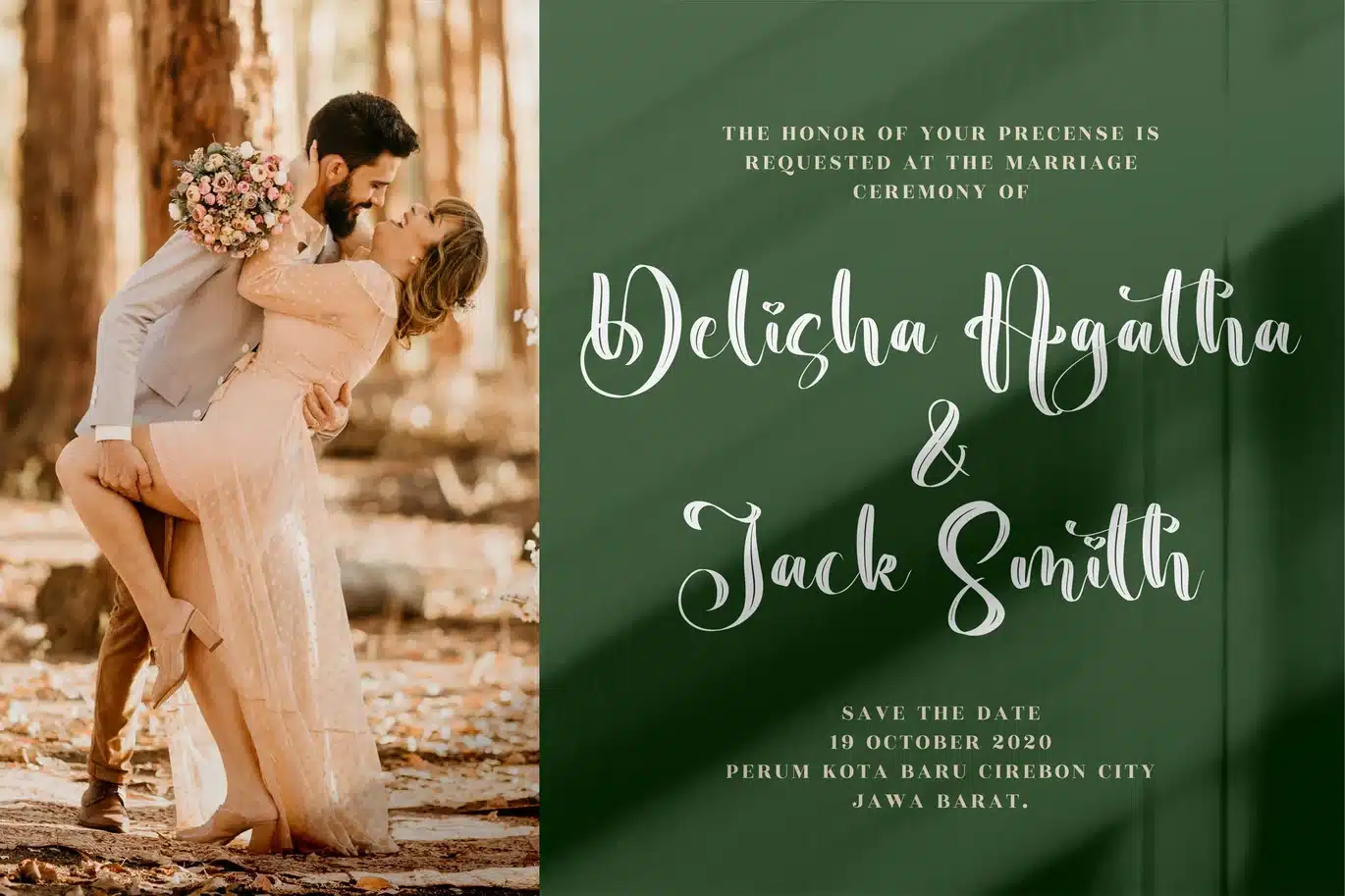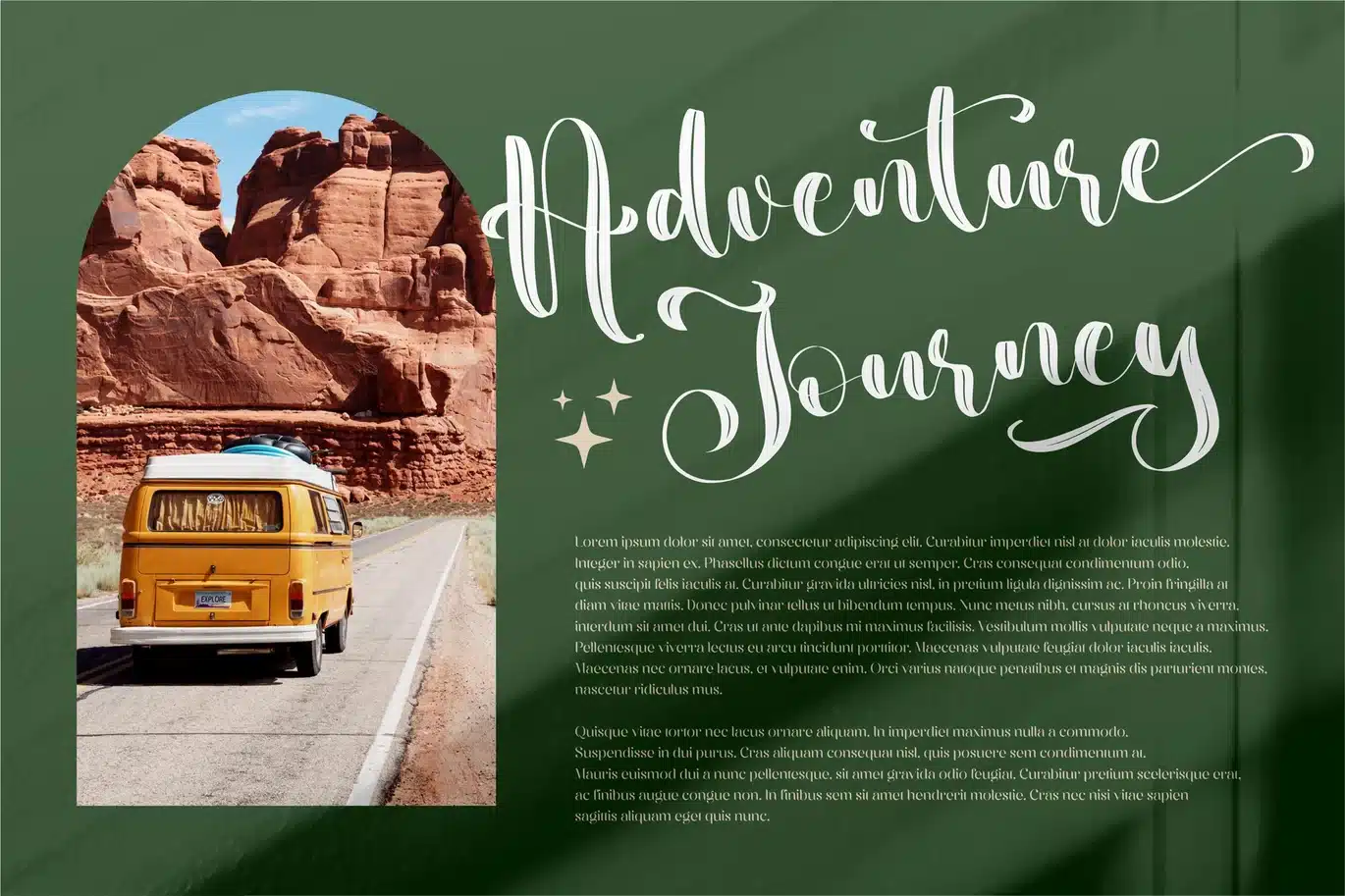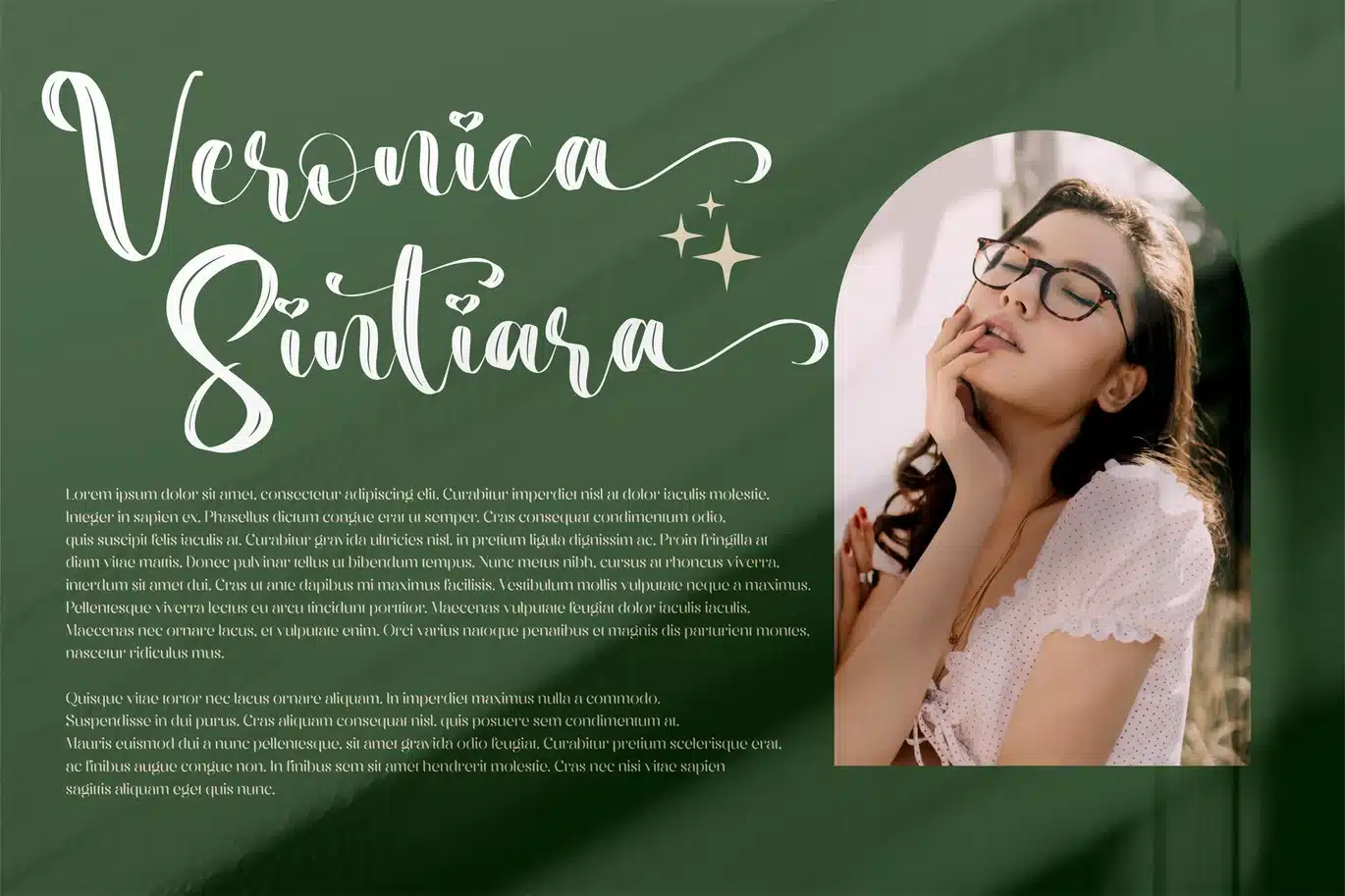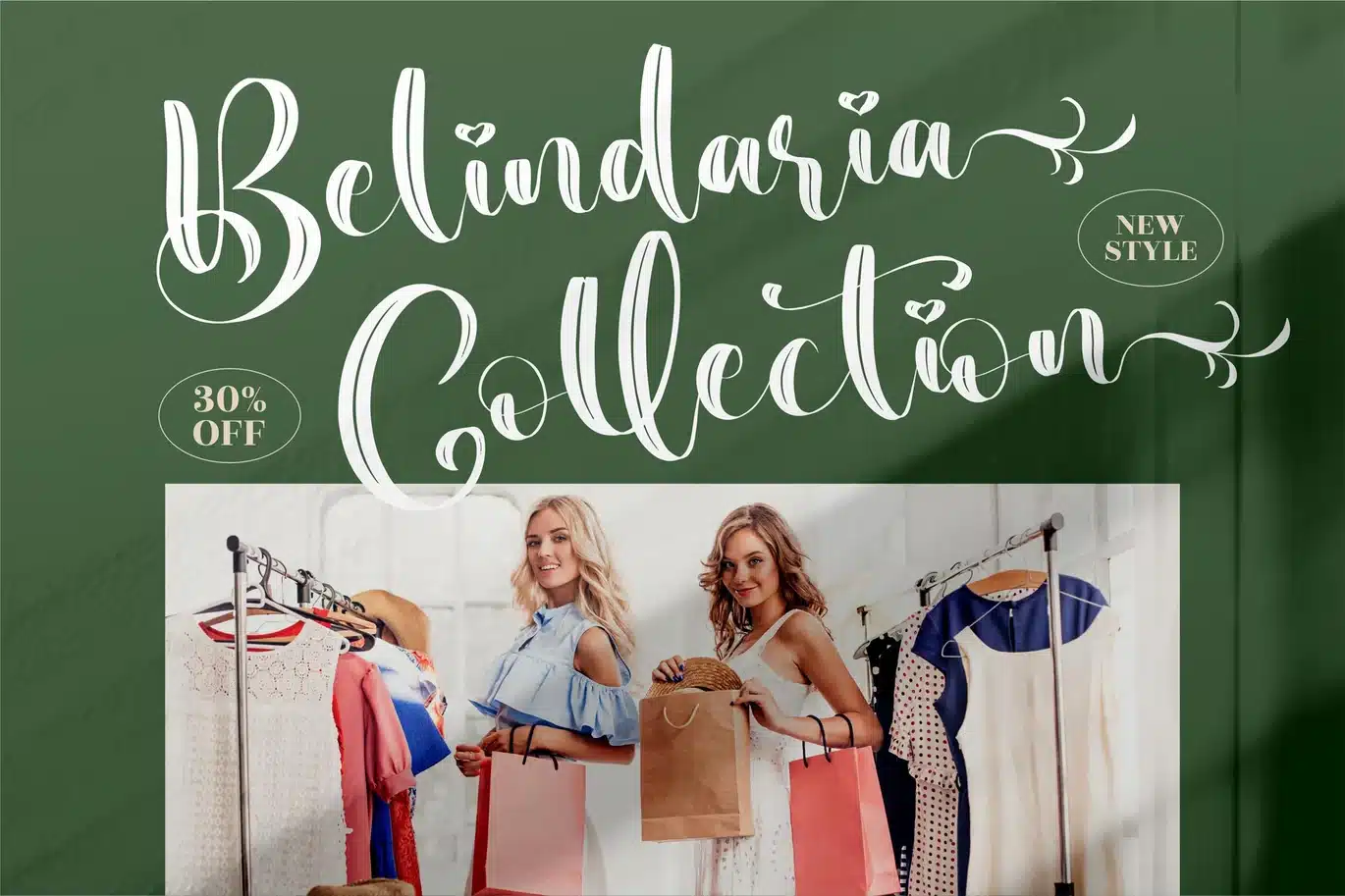
Beauty Nature Beautiful Script Font
Hi ladies & gentlemen, this is one of our fonts suitable to complement your digital and printed creative products.